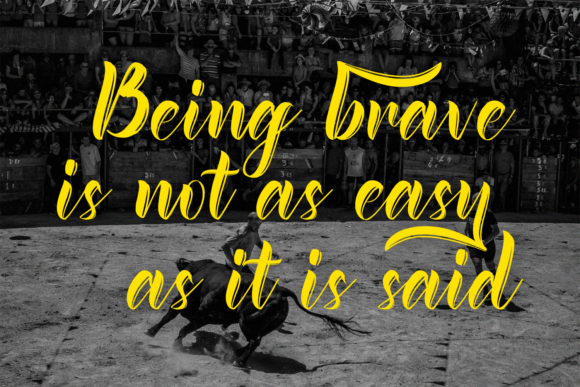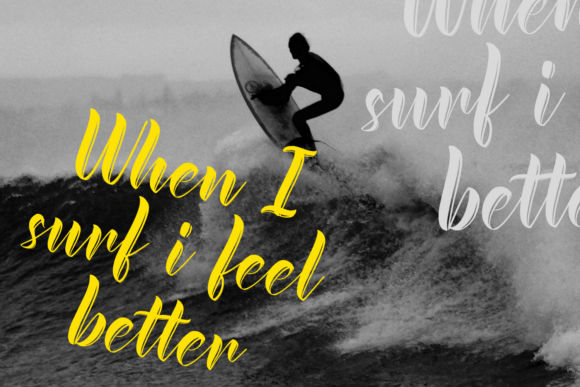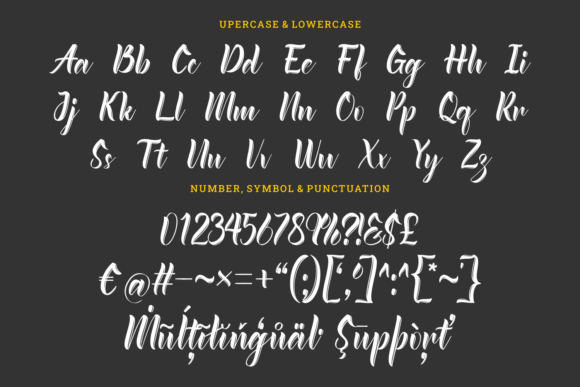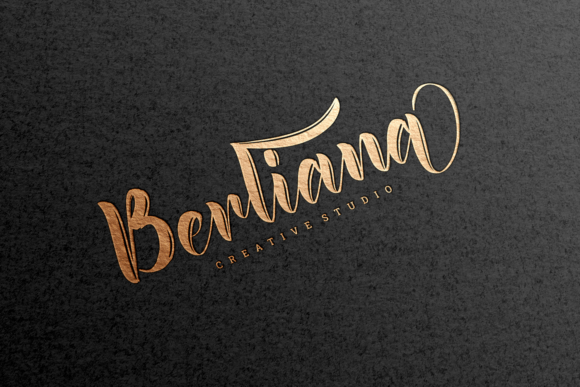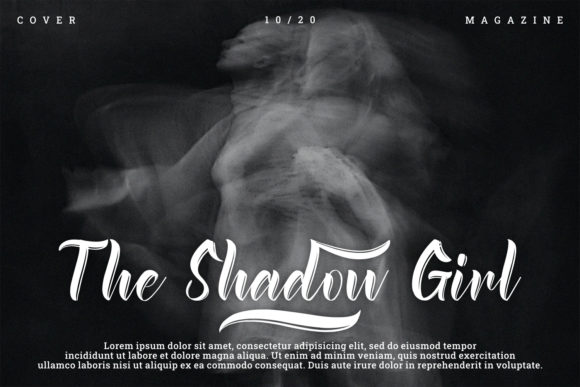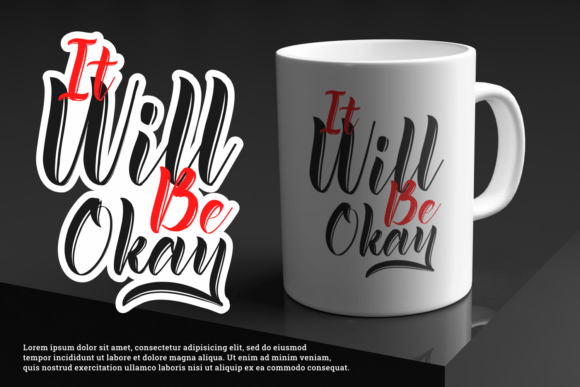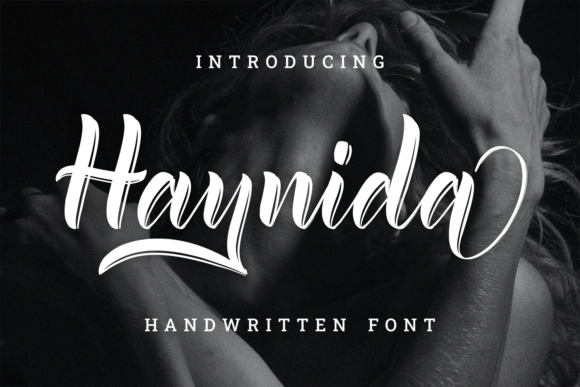
Introducing Haynida Font: The Playful and Elegant Brush Script Font
Are you looking for a font that can add a personal touch to your designs? Do you want to create a warm and friendly feel in your projects? Look no further than Haynida Font, a playful and elegant brush script font that is perfect for a variety of design applications.
What is Haynida Font?
Haynida Font is a beautifully crafted brush script font that features smooth, flowing letters that mimic the look of hand lettering. Its unique style is perfect for creating a warm and friendly feel in designs, making it ideal for projects such as invitations, greeting cards, logos, and more.
Key Features of Haynida Font
• Playful and Elegant: Haynida Font combines playfulness with elegance, making it perfect for a wide range of design projects.
• Smooth and Flowing Letters: The font features smooth, flowing letters that mimic the look of hand lettering, adding a personal touch to any project.
• Warm and Friendly Feel: Haynida Font is designed to create a warm and friendly feel in designs, making it perfect for projects that require a personal touch.
• Versatile: The font is versatile and can be used for a variety of design applications, including invitations, greeting cards, logos, and more.
Uses of Haynida Font
Haynida Font is perfect for a wide range of design projects, including:
• Invitations: Create beautiful and unique invitations for weddings, parties, and other special events.
• Greeting Cards: Design personalized greeting cards for birthdays, holidays, and other special occasions.
• Logos: Use Haynida Font to create a unique and memorable logo for your business or brand.
• Branding: Add a personal touch to your brand with Haynida Font, perfect for creating a warm and friendly feel.
Benefits of Using Haynida Font
Using Haynida Font in your designs offers a range of benefits, including:
• Unique Style: Haynida Font offers a unique style that will set your designs apart from others.
• Easy to Read: The font is easy to read, making it perfect for designs that require a clear and concise message.
• Customizable: Haynida Font is customizable, allowing you to adjust the font to suit your design needs.
• Time-Saving: Using a pre-designed font like Haynida Font can save you time and effort in your design projects.
Tips for Using Haynida Font
Here are some tips for using Haynida Font in your designs:
• Pair with Other Fonts: Pair Haynida Font with other fonts to create a unique and visually appealing design.
• Use for Headings: Use Haynida Font for headings and titles to add a personal touch to your designs.
• Experiment with Colors: Experiment with different colors to find the perfect combination for your design.
• Keep it Simple: Keep your design simple and clean to allow Haynida Font to shine.
Haynida Font is a playful and elegant brush script font that is perfect for designers and crafters looking to add a personal touch to their projects. With its smooth, flowing letters and warm and friendly feel, Haynida Font is ideal for a wide range of design applications, including invitations, greeting cards, logos, and more. Whether you’re looking to create a unique and memorable design or simply want to add a personal touch to your projects, Haynida Font is the perfect choice.